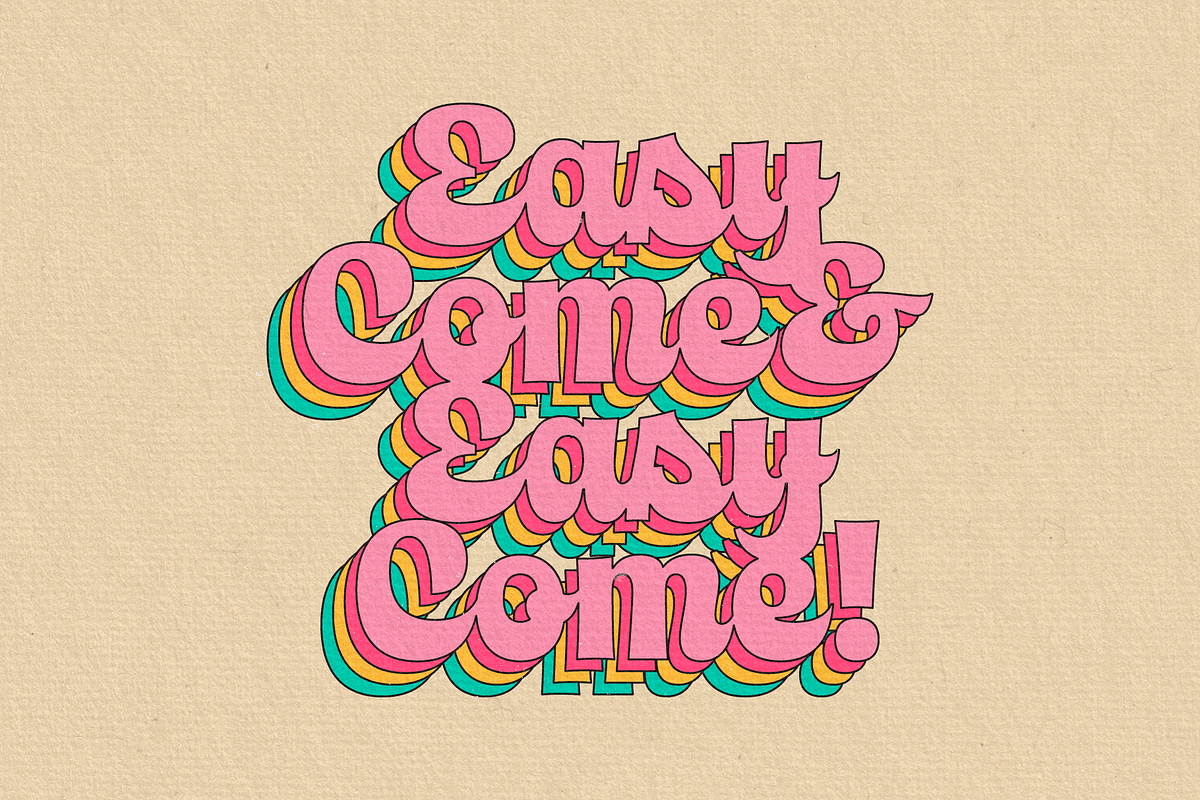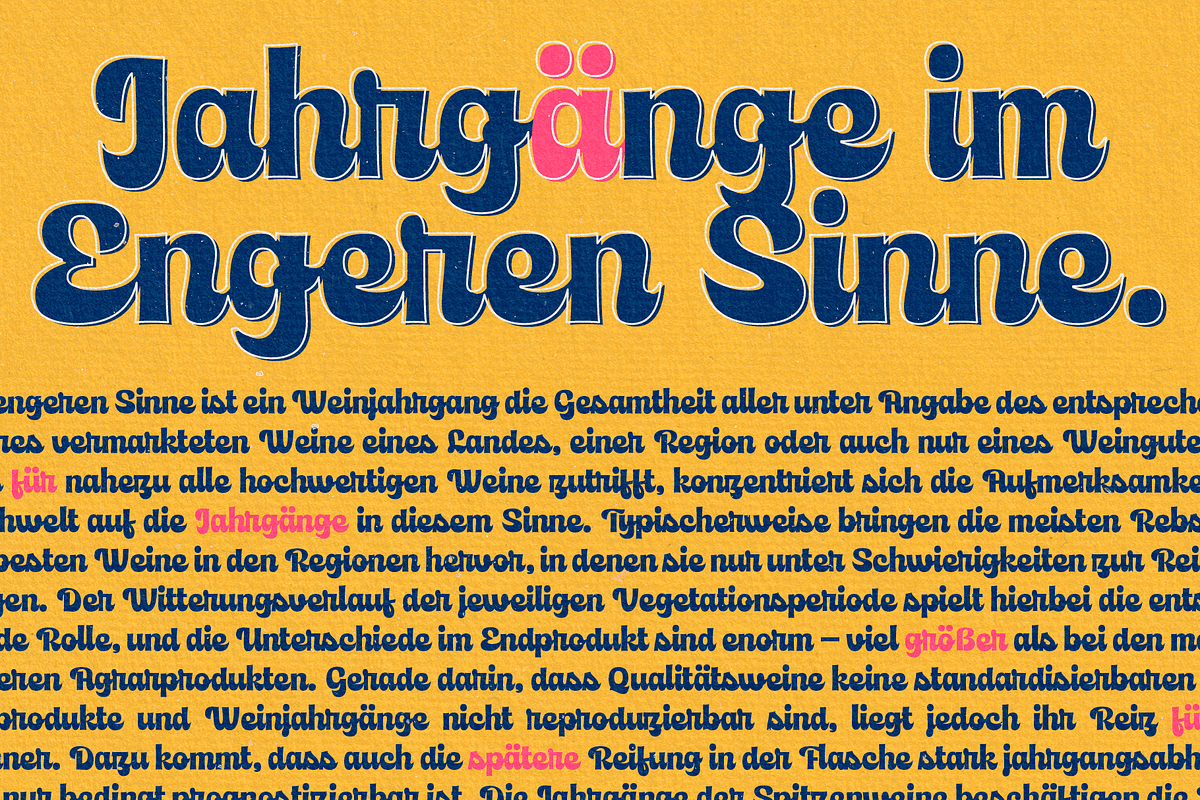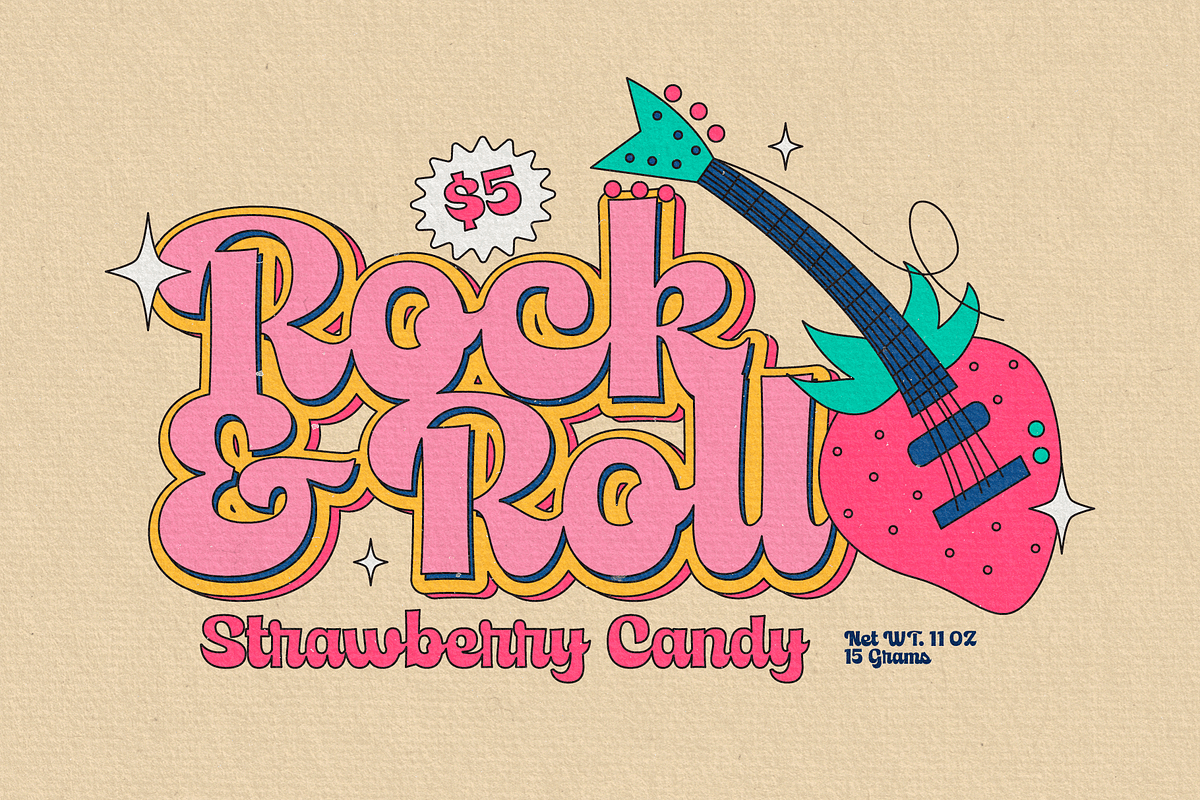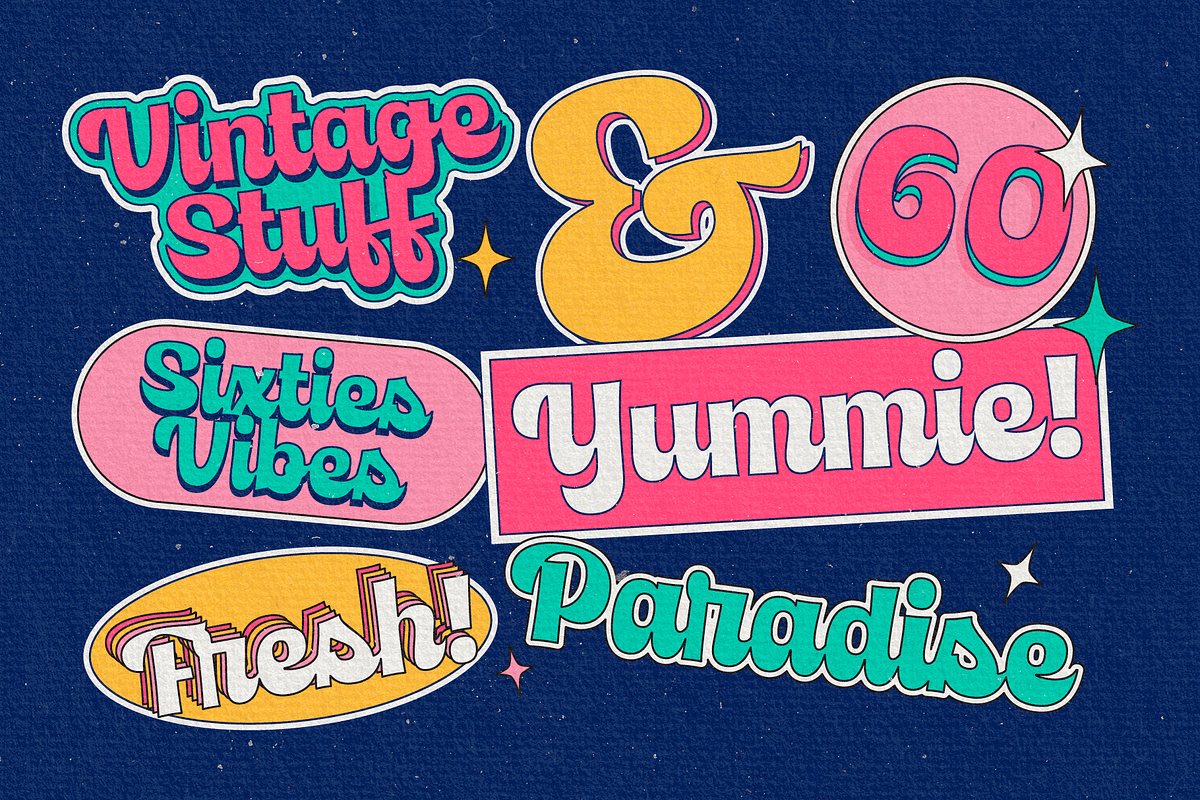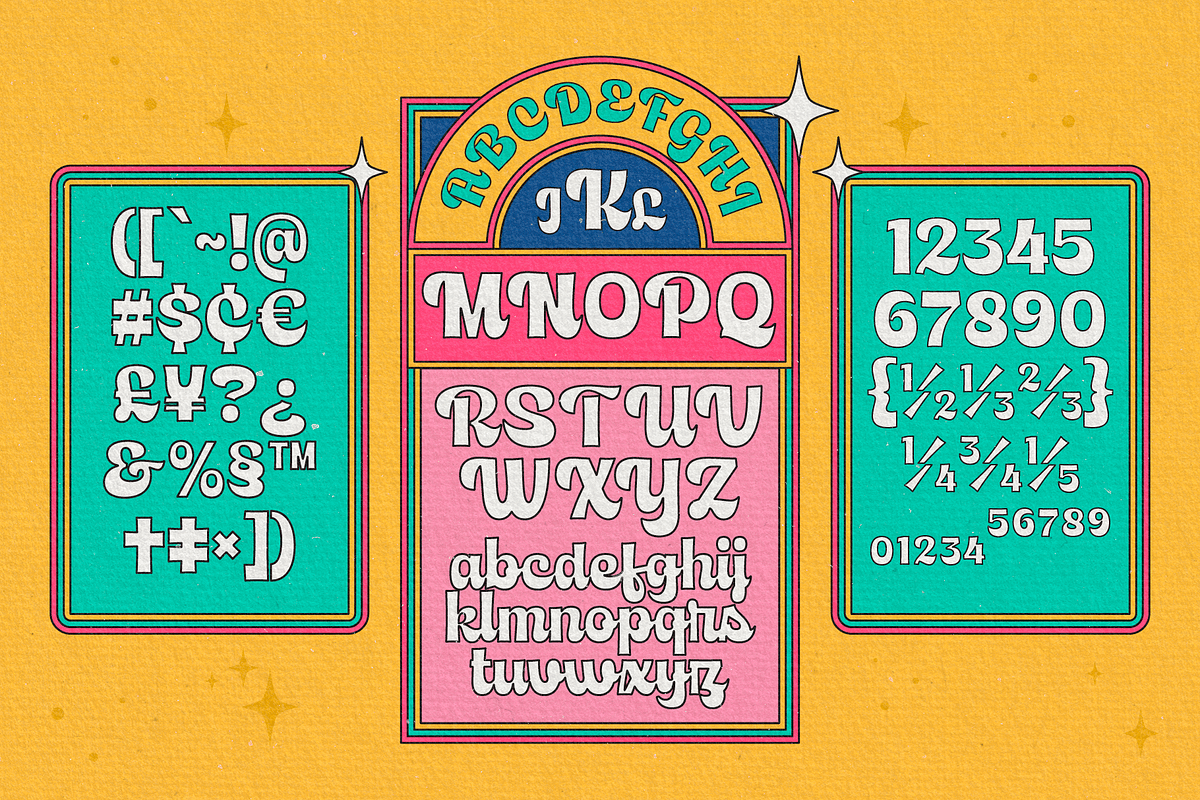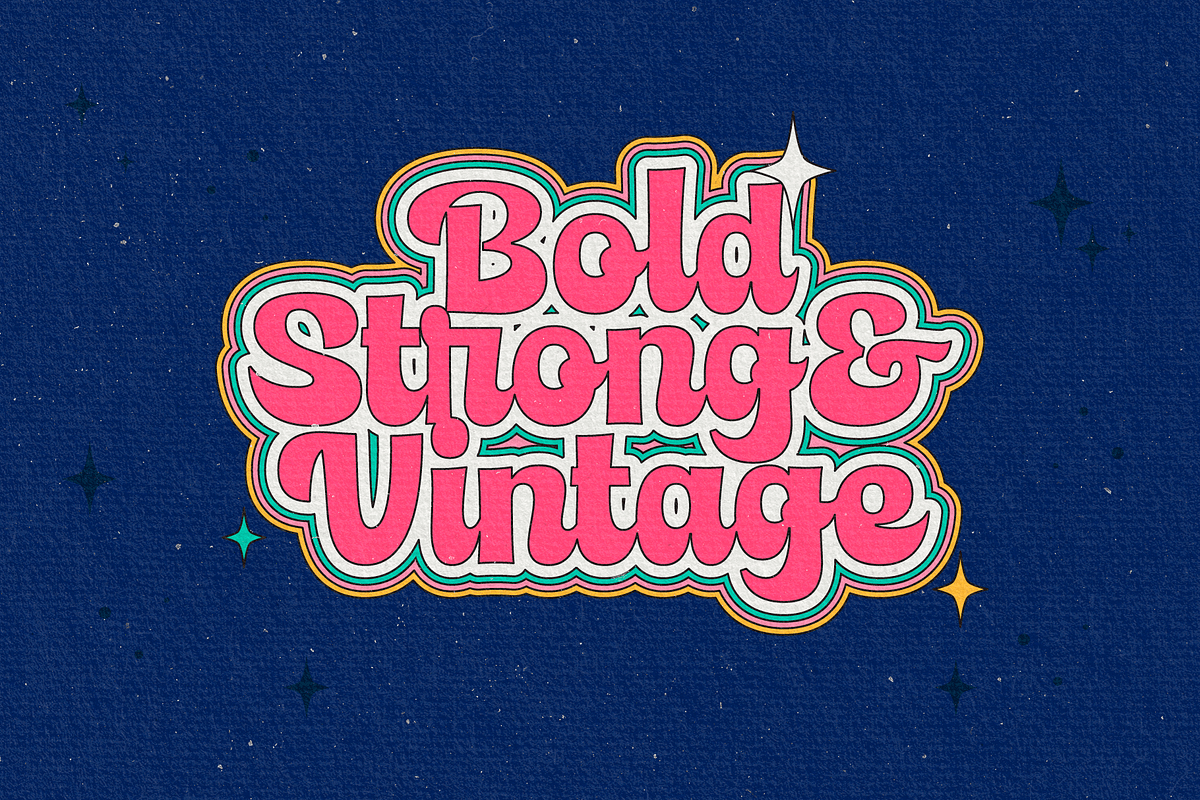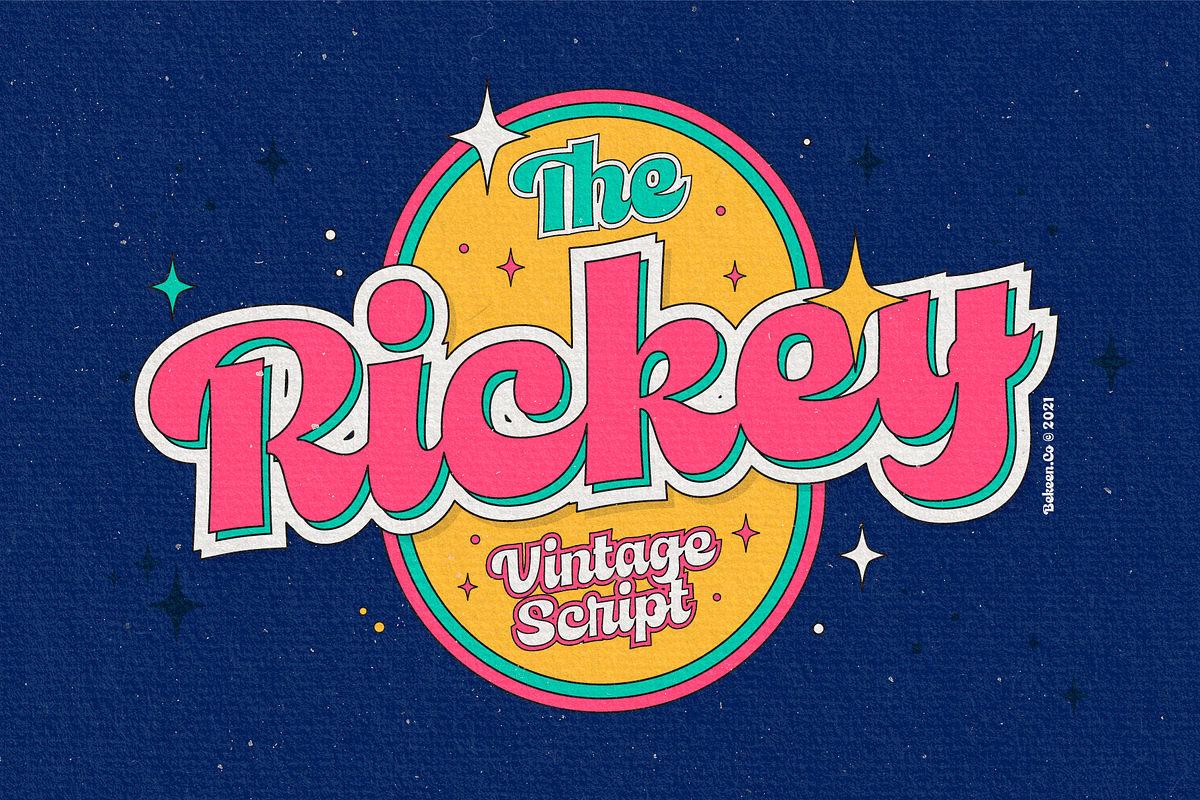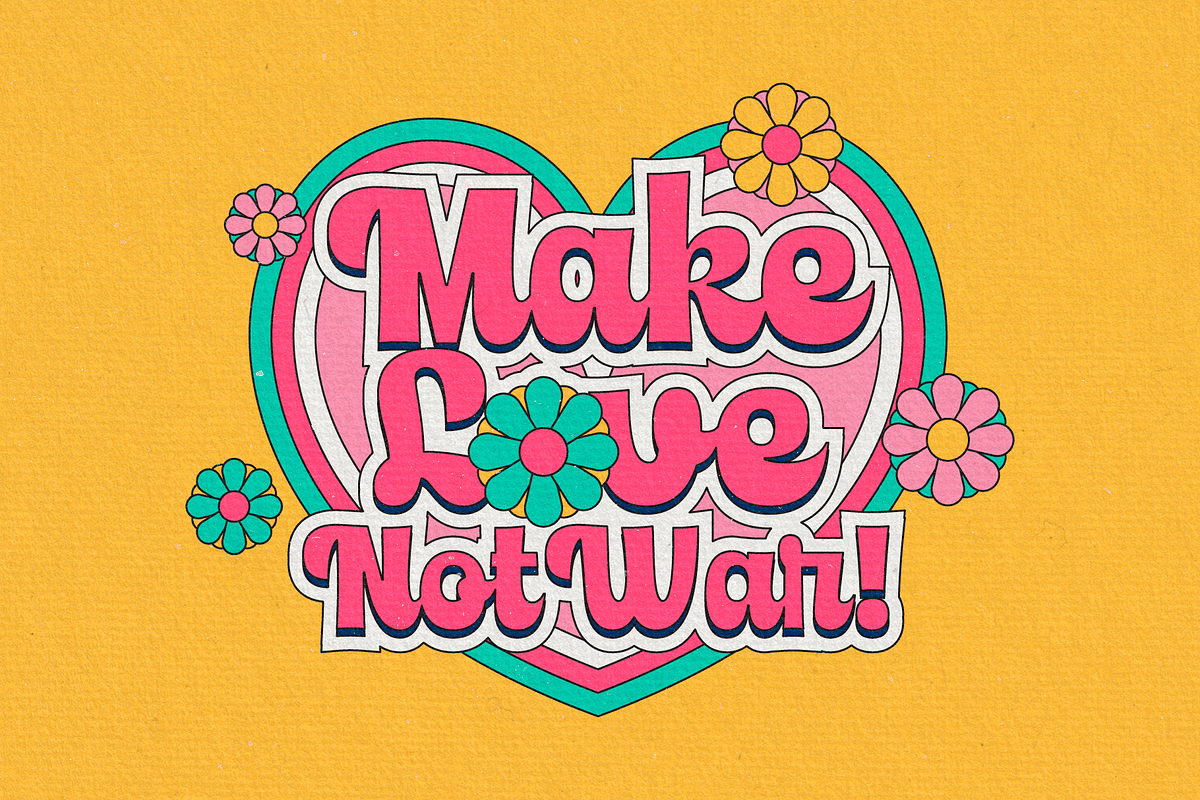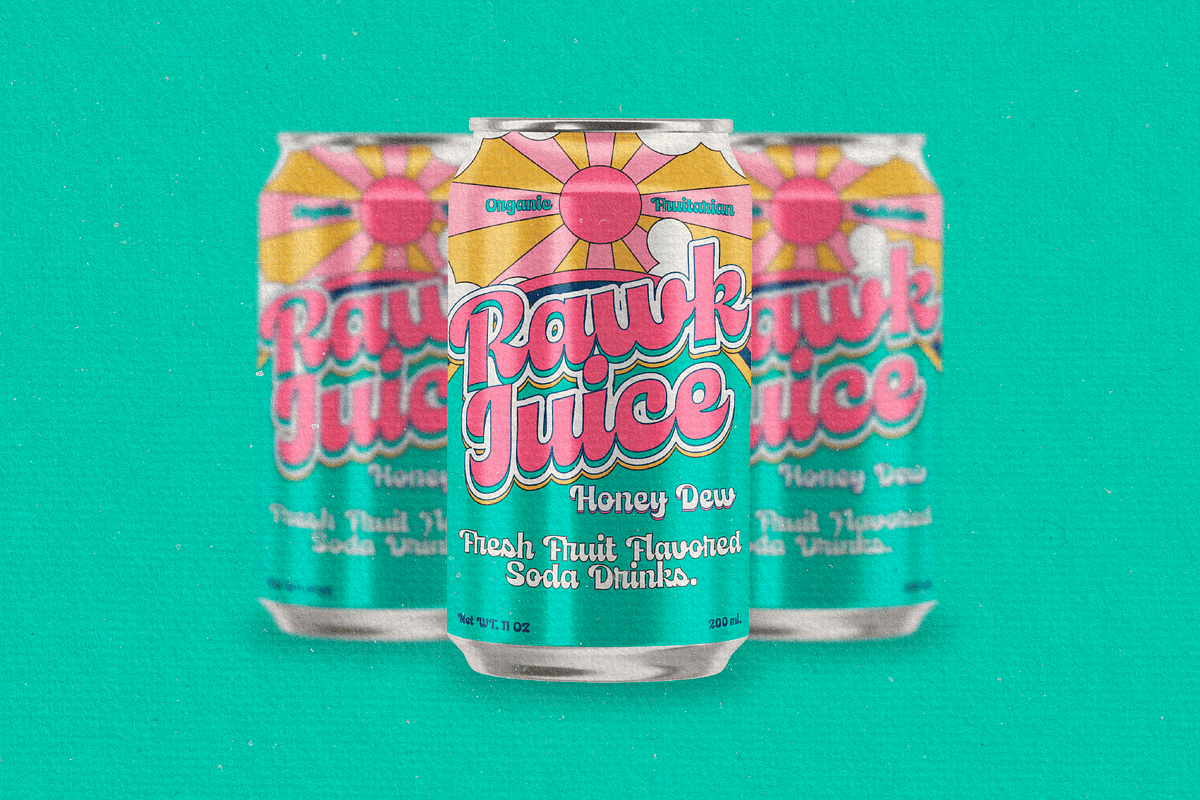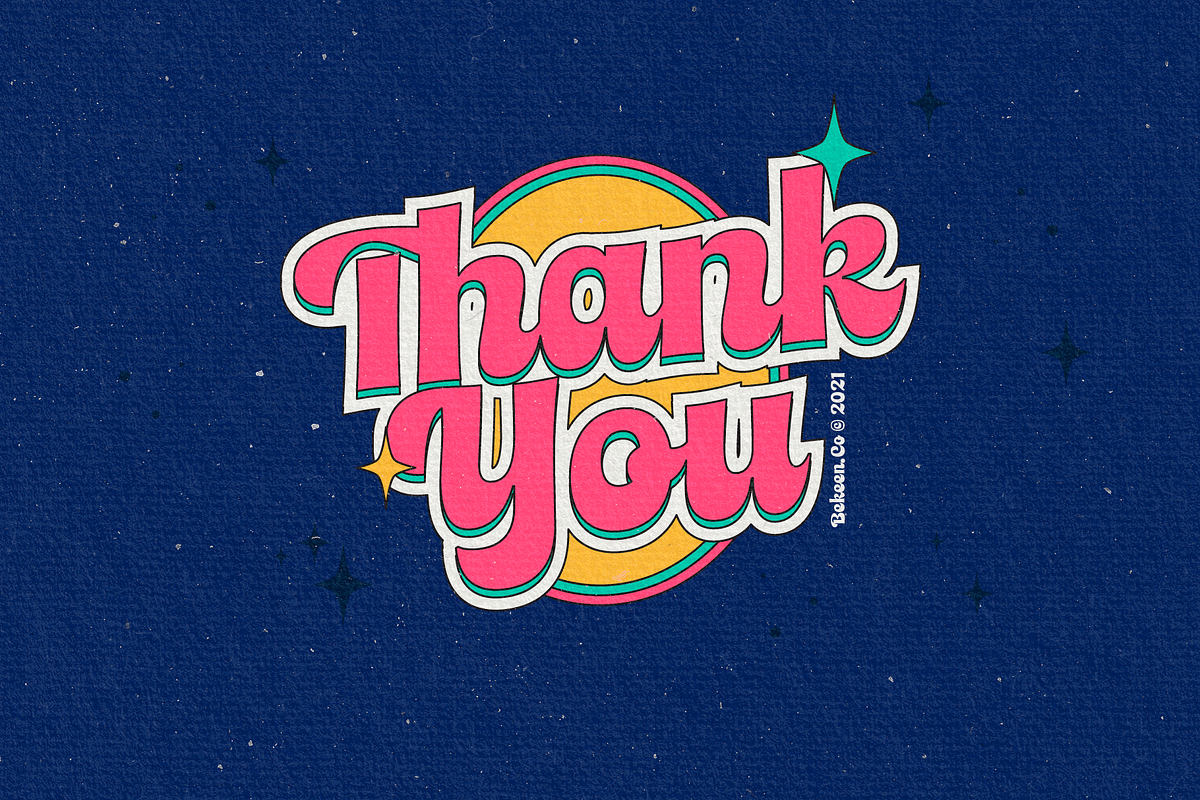
Vintage Script Font
Looking for a cool font with a retro style? What you need is Rickey, it has a bold and retro-look. Rickey will bring you to the 60s era where you could find cool posters, advertisements, and labels. This font perfect for logo, badge, poster, label, sticker, t-shirt/apparel, and more.
- Lowercase and Uppercase